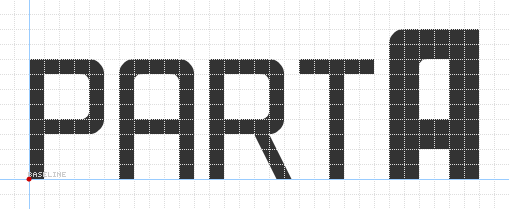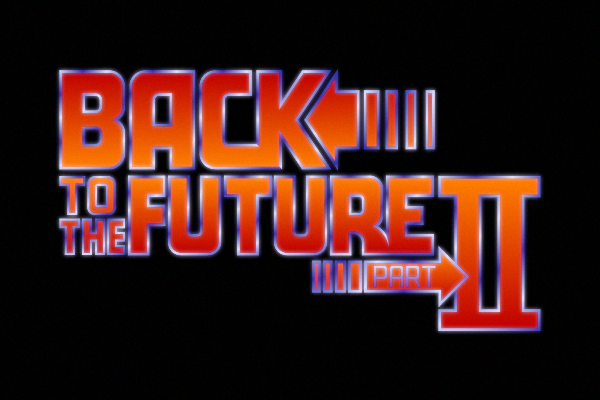
Nice retro feeling. I love that movie! :D
Well played! I love the &.
A good solid feel ... 'Back to the Future' brought right up to the present! 10/10
How do you do "to the" like in the picture? And "part" in the arrow?
@justin, just wrote in a smaller size separately and positioned them properly.
(Edit: updated the punctuation)
The word "part" is a thinner text. How do you make that happen?
@Yautja - As a big BTTF fan, somehow I missed this one.  Excellent work!  :^)
@jffjnny I just used less bricks (here it is with A for comparison)
Updated with better proportions.
Add roman 5, 10, 50, etc. for parts higher than 3
@brynda I added Roman 5 and 10 (on ^ and ¨).
I don't know why'd you tell us that—here at FontStruct the possibilities are a little limited which makes us find other ways to enhance the font. So if I was to choose between a $30 non-modular font which could be simply traced in FF and a work born to creativity and effort which is this font—I'd definitely go for Yautja's Rewinder.
Great work!